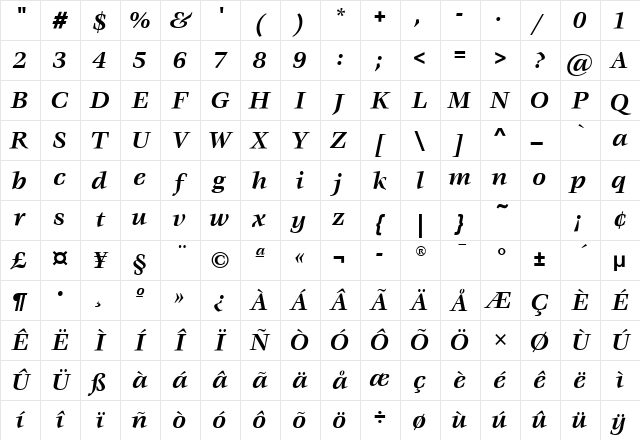
VeljovicITC is a composed and adaptable typeface that performs quietly and consistently across a wide range of design contexts. The slanted form adds forward momentum and visual energy. Its bold stroke weight gives it real presence on the page.
Pro Tip: Use VeljovicITC for emphasis, pull quotes, and subheadings where its slanted energy can add rhythm to the layout.